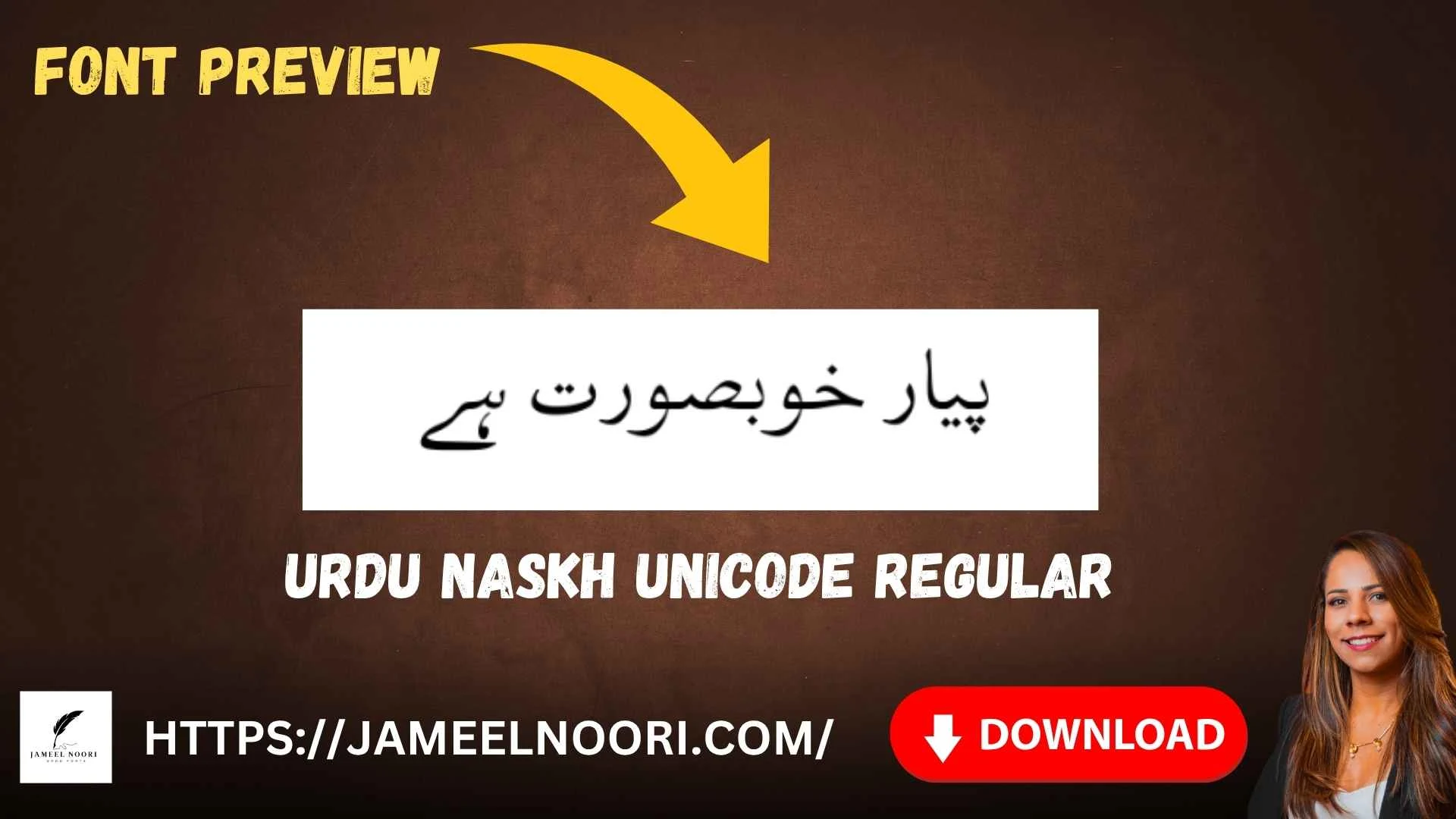
Urdu Naskh Unicode Regular Font Free Download – Classic Urdu Typeface 2026
Urdu Naskh Unicode Regular Font image – modern and clear Urdu font for digital and print
The Urdu Naskh Unicode Regular Font is a clean, simple, and highly functional TrueType Urdu font that represents the traditional Naskh style in a digital form.With over 2,600 downloads and an average user rating of 2.8 out of 5, this font remains a popular option for users who need a lightweight and reliable Urdu Unicode typeface.